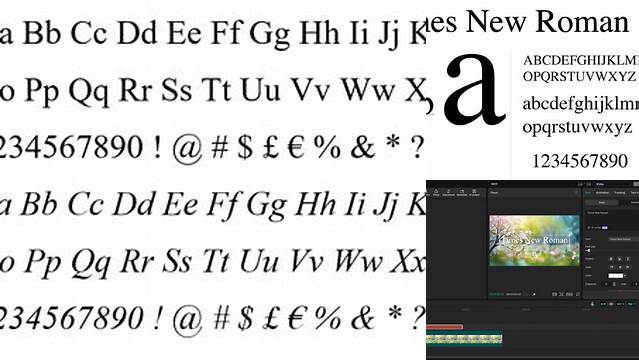
Hey guys! Ever wondered about that super classic, super recognizable font you see everywhere, from official documents to your favorite books? Yeah, I’m talking about Time New Roman! This font is like the staple of typography, and for good reason. It's clean, readable, and has a timeless quality that makes it perfect for a ton of different uses. In this guide, we'll dive deep into why Time New Roman is so popular and how you can download and install it on your computer. Whether you're a student writing an essay, a professional crafting a report, or just someone who loves fonts, this is your ultimate guide. Let’s get started and explore the world of Time New Roman together!
Time New Roman, with its distinct serif design, has a rich history and continues to be a standard choice in various fields. Its balanced appearance and high readability make it suitable for extensive texts, while its elegance adds a touch of sophistication to formal documents. Understanding the nuances of Time New Roman can help you appreciate its design and use it effectively in your own projects. This font is not just about aesthetics; it's about functionality and clarity, ensuring that your message is conveyed clearly and professionally. From its origins in the early 20th century to its widespread adoption in the digital age, Time New Roman has proven its versatility and enduring appeal. So, whether you're new to typography or a seasoned designer, there's always something more to learn about this iconic font. By the end of this guide, you'll not only know how to download and install it but also understand why it remains a favorite among professionals and enthusiasts alike. Let's embark on this journey and discover the timeless charm of Time New Roman!
So, why is Time New Roman such a big deal? Well, there are a few reasons. First off, it's super readable. The serifs (those little feet at the end of the strokes) help guide your eye across the page, making it easier to read long blocks of text. This is why it's often used in books, newspapers, and academic papers. Plus, it has a classic, professional look that's perfect for formal documents like resumes and reports. It's like the little black dress of fonts – always appropriate and always stylish. But the popularity of Time New Roman also stems from its long history and widespread use. It became a standard font on computers early on, which meant that everyone had access to it. This ubiquity has made it a default choice for many, but its enduring appeal goes beyond mere accessibility. The font’s design is rooted in the principles of classical typography, making it visually pleasing and easy to read. Its balanced proportions and clear letterforms ensure that it remains legible even at small sizes, a crucial factor in both print and digital media.
Moreover, Time New Roman has a certain gravitas that makes it suitable for formal communication. It conveys a sense of authority and professionalism, which is why it's often used in legal documents, academic publications, and business correspondence. However, its versatility also allows it to be used in more creative contexts. While it may not be the most exciting or trendy font, its reliability and readability make it a safe and effective choice for a wide range of applications. In a world where fonts come and go, Time New Roman remains a constant, a testament to its enduring quality and timeless design. So, when you're choosing a font for your next project, consider Time New Roman for its readability, professionalism, and classic appeal. It's a font that has stood the test of time and continues to be a valuable tool in any designer's or writer's toolkit. Let's move on to the practical steps of downloading and installing this essential font.